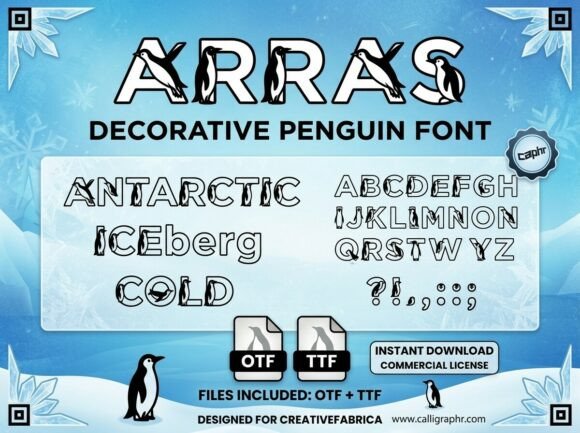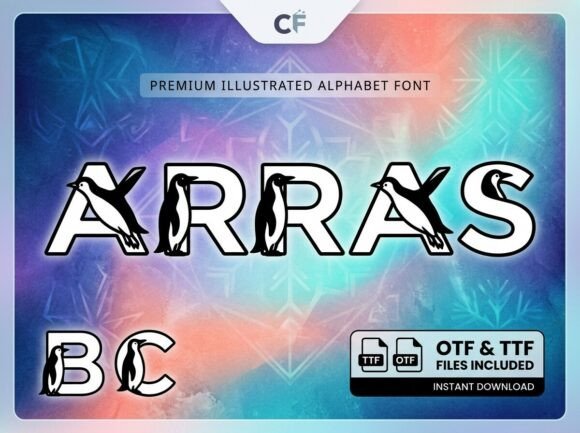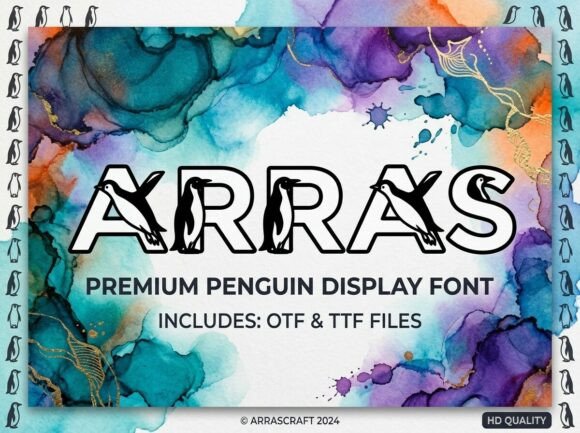
Break the Ice with Arras: The Cool Display Typeface for Winter Branding
Are you looking for a font that captures the essence of winter fun and playfulness? Look no further than Arras, a bold and charming display typeface that’s perfect for frozen dessert identities, children’s winter apparel, arctic adventure promotions, and social media headers. In this article, we’ll dive into the unique features of Arras and explore how it can elevate your winter branding.
The Inspiration Behind Arras
Arras is more than just a font – it’s a visual representation of the “polar-and-playful” soul of winter. The brainchild of talented designers, Arras combines the structural weight of bold typography with the approachable personality of hand-drawn illustrations. The result is a font that’s both modern and whimsical, perfect for capturing the imagination of your audience.
Rhythmic Penguin Silhouettes: The Unique Selling Point of Arras
What sets Arras apart from other display typefaces is its distinctive feature: rhythmic, hand-drawn penguin silhouettes that bridge the gap between wildlife illustration and modern winter branding. These silhouettes add a touch of playfulness and personality to each letterform, making Arras a standout choice for designers and crafters. Whether you’re creating a logo, social media header, or promotional material, Arras is sure to grab attention and leave a lasting impression.
Perfect for Winter Branding
Arras is specifically designed for winter branding, making it the premier choice for:
- Frozen dessert identities: Add a touch of whimsy and fun to your ice cream, gelato, or frozen yogurt branding with Arras.
- Children’s winter apparel: Create adorable and engaging designs for kids’ winter clothing, hats, and accessories with Arras.
- Arctic adventure promotions: Use Arras to promote your arctic expeditions, winter sports, or outdoor activities.
- Social media headers: Make a statement with Arras and create eye-catching social media headers that showcase your winter brand personality.
Key Features of Arras
So, what makes Arras so special? Here are some key features that set it apart:
- Bold and rounded letterforms: Arras features sturdy, rounded letterforms that exude confidence and approachability.
- Rhythmic penguin silhouettes: The hand-drawn penguin silhouettes add a touch of playfulness and whimsy to each letterform.
- Heavy structural weight: Arras has a robust and sturdy design that makes it perfect for headlines, titles, and promotional materials.
- Approachable personality: Arras is designed to be friendly and engaging, making it perfect for brands that want to connect with their audience.
Tips for Using Arras Effectively
To get the most out of Arras, here are some tips for using it effectively:
- Use it as a headline font: Arras is perfect for grabbing attention and making a statement. Use it as a headline font to draw attention to your brand or promotion.
- Pair it with a complementary font: Arras works well with a variety of fonts. Experiment with pairing it with a complementary font to create visual interest and hierarchy.
- Experiment with colors and textures: Arras looks great in a variety of colors and textures. Experiment with different combinations to find the one that works best for your brand.
Arras is a unique and captivating display typeface that’s perfect for winter branding. With its bold and rounded letterforms, rhythmic penguin silhouettes, and approachable personality, Arras is sure to grab attention and leave a lasting impression. Whether you’re a designer, crafter, or marketer, Arras is a great choice for anyone looking to create engaging and effective winter branding. So why wait? Break the ice with Arras and bring a touch of polar-and-playful charm to your brand.